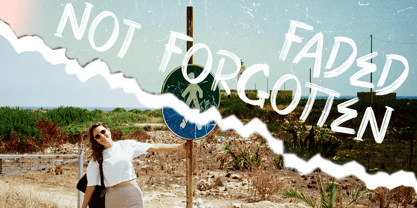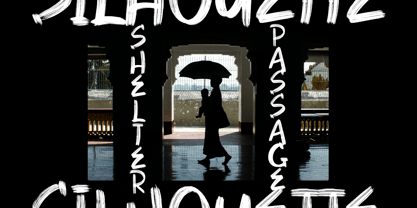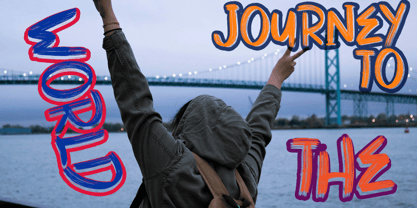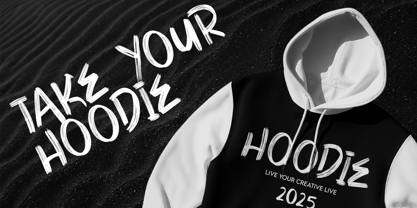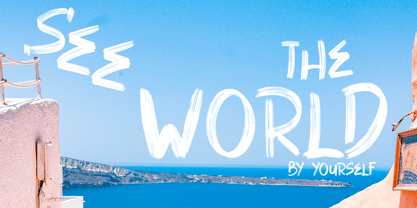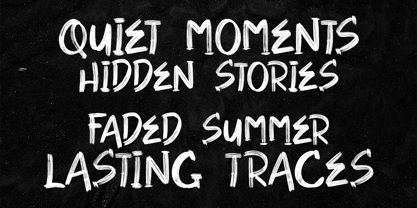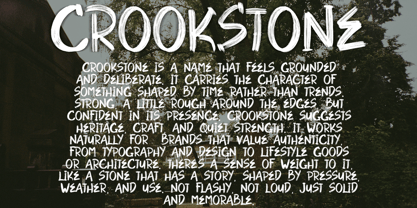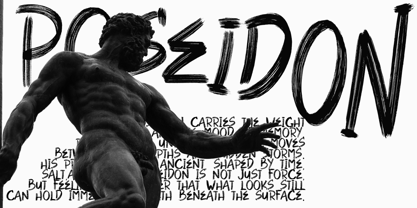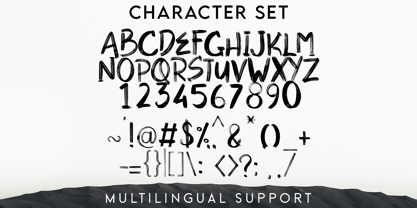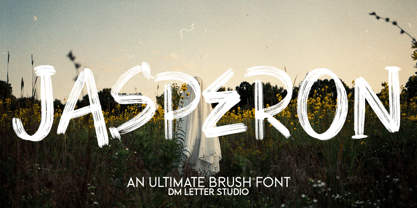
Meet Jasperon, the Ultimate Brush Font
Jasperon is a bold, expressive brush font built to bring raw energy and confidence into your designs. Each stroke feels hand-painted, textured, and alive, giving your work a strong personality without losing readability. The letterforms are dynamic but controlled, so headlines stay powerful while short phrases remain clear. Whether used large or small, Jasperon delivers impact with an authentic handcrafted feel. Use it for branding, posters, apparel, social media graphics, packaging, and creative quotes. As a result, your designs feel bold, modern, and unmistakably human.
Fast layouts with the Jasperon Brush Font
Start with short, punchy words to let the brush texture shine. After that, pair Jasperon with a clean sans serif or a simple serif for supporting text. Because the strokes are bold and confident, titles, quotes, and logos remain readable even at smaller sizes. In addition, Jasperon works well with textured backgrounds, minimal layouts, and high-contrast color palettes. Finally, save reusable pairings like black and white, charcoal and cream, rust and beige, or navy and soft gray for quick projects.
Creative uses and quick wins
Logotypes, brand headlines, and creative slogans
Posters, flyers, and event graphics
Apparel designs, merch, and packaging
Social media quotes, reels covers, and thumbnails
Design tips for Jasperon Brush Font
Use Jasperon as the hero font and keep body text simple. Also, give the letters enough space so the brush texture stays visible and clean. For print, export at 300 DPI to preserve detail. For digital use, scale up slightly so edges stay sharp on all screens. Finally, avoid overusing effects. Jasperon already carries strong character on its own.
Jasperon